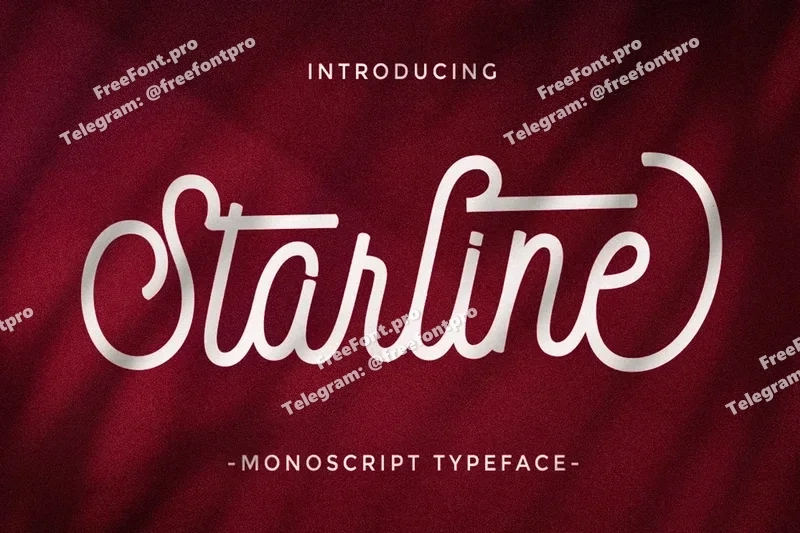
Starline Script
Starline is a vintage display script font that blends retro charm with a modern, handcrafted touch. Its flowing strokes and stylish swashes make it perfect for logos, packaging, posters, or any design that wants to feel strong, classic, and full of personality.